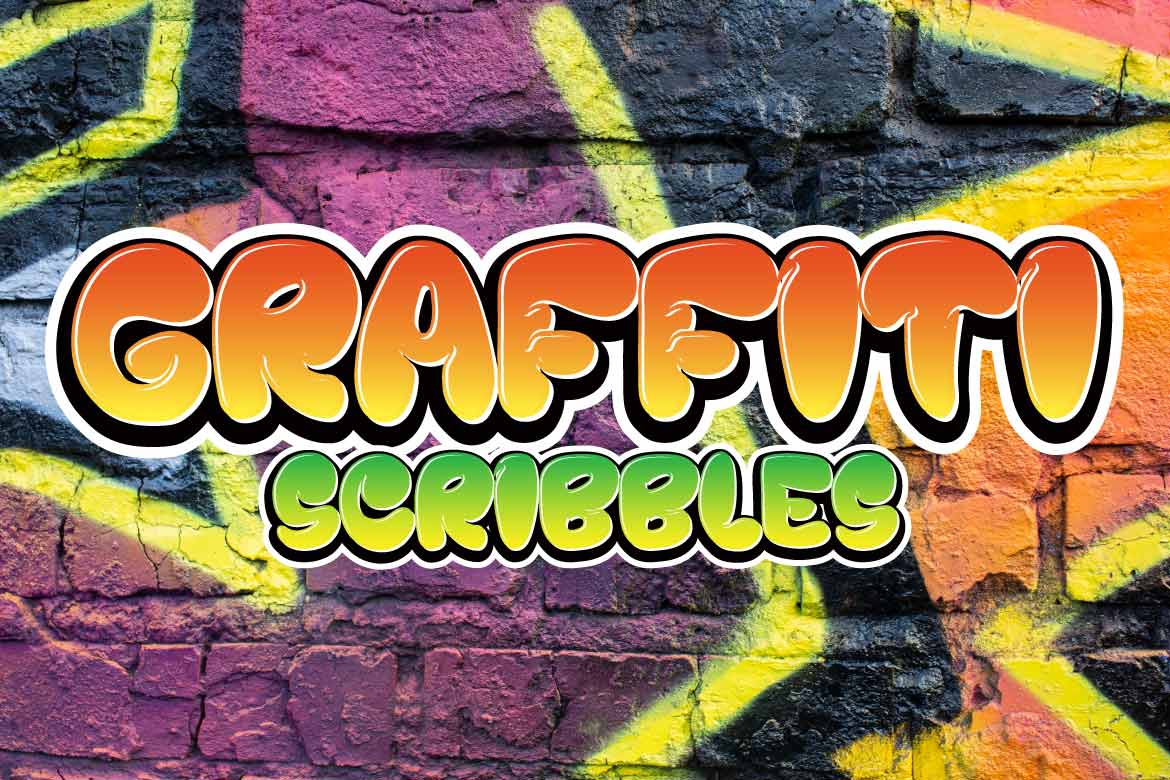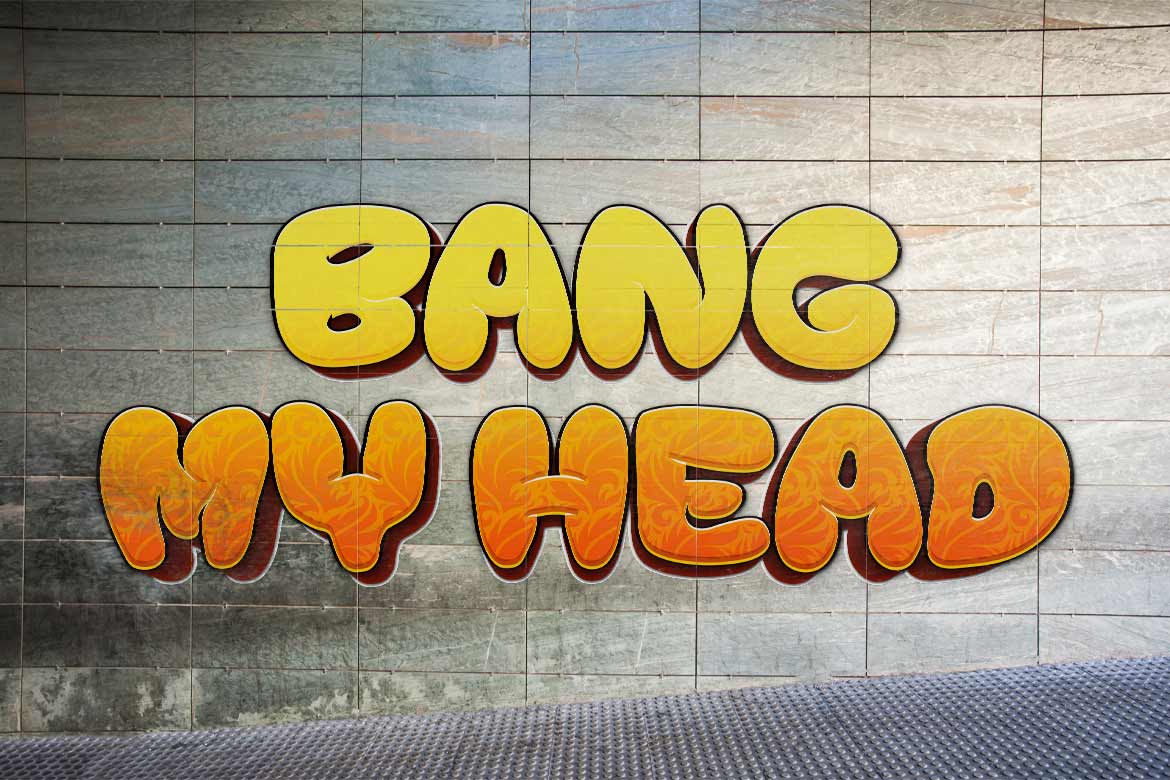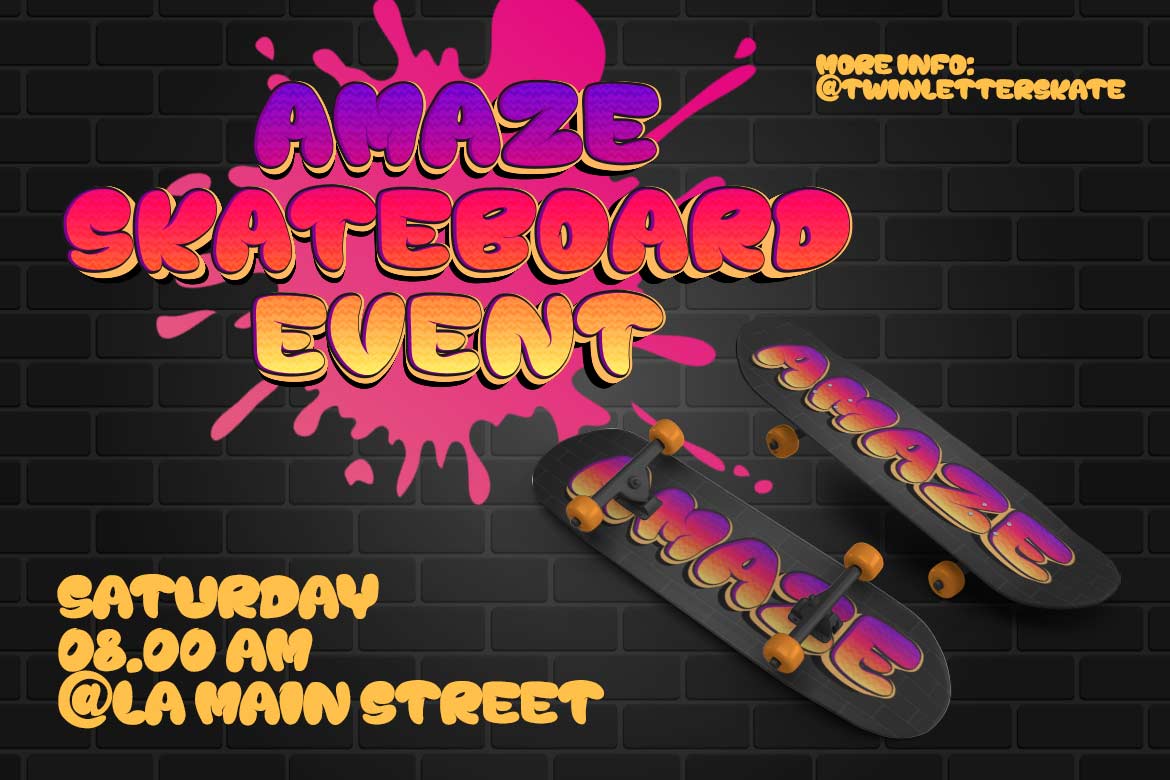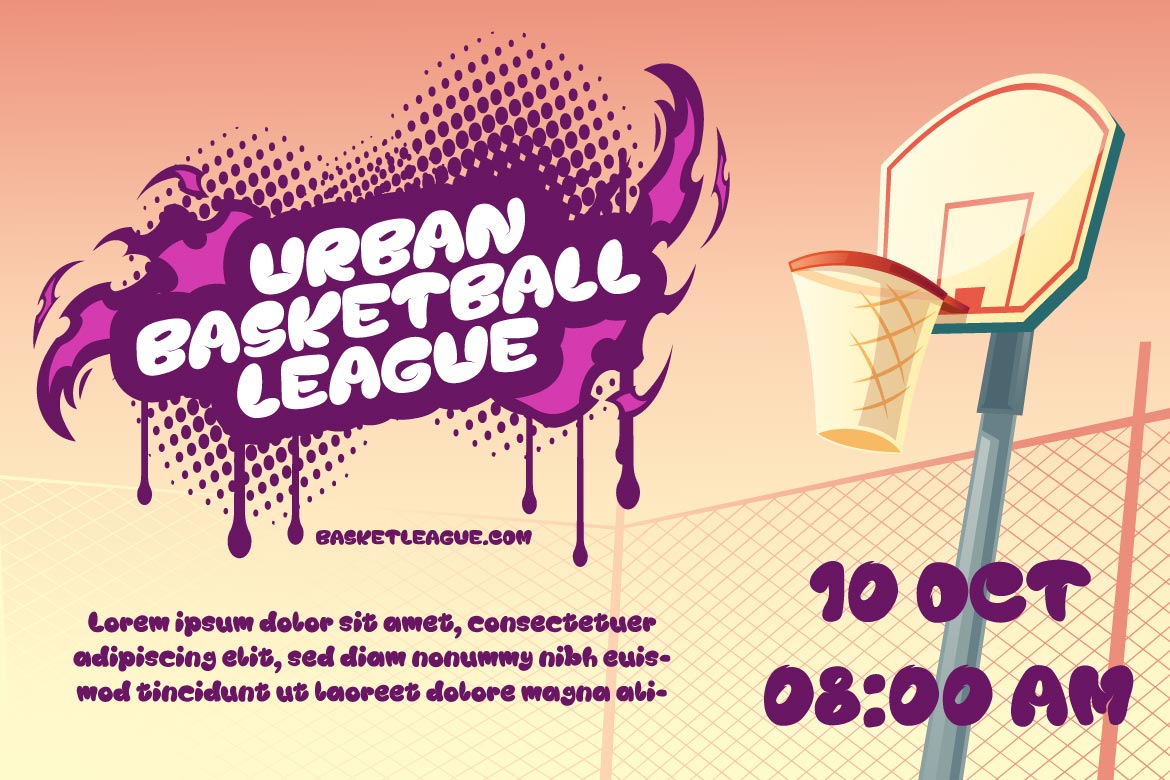
Swath Trees Font
Swath Trees Display Font
It’s a beautiful and appealing graffiti font with a modern and phenomenal style, designed with attention to each letter so that when used, it can create a blend of words that contain charming and striking artwork. Don’t hesitate to use this font for various project needs.
This graffiti font is great for product logos, poster titles, headlines, packaging, film titles, logotypes, gorgeous writing, and trendy graffiti designs, among other things.
Of course, if you utilize this font in your numerous creative projects, they will be perfect and outstanding. Use this typeface right away for your one-of-a-kind and remarkable projects.